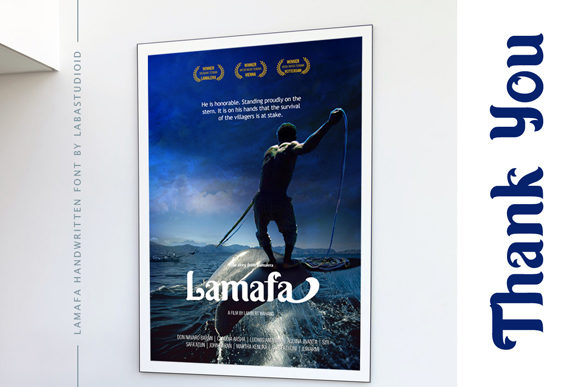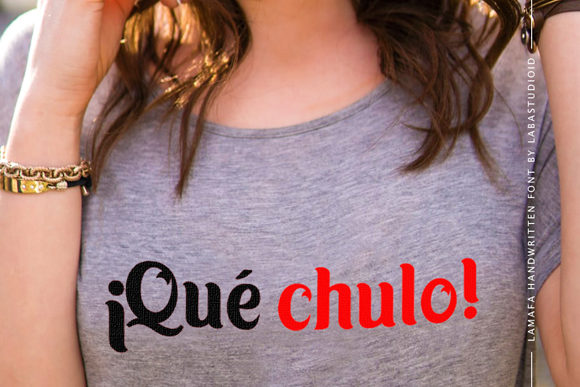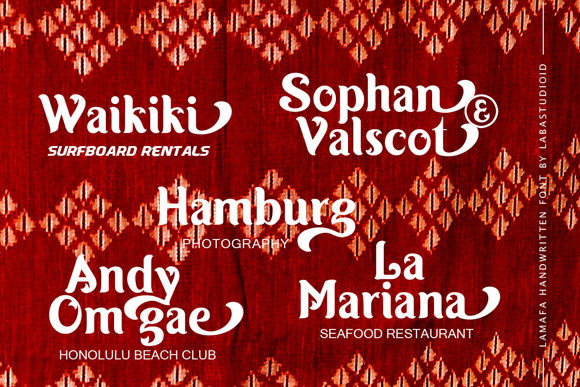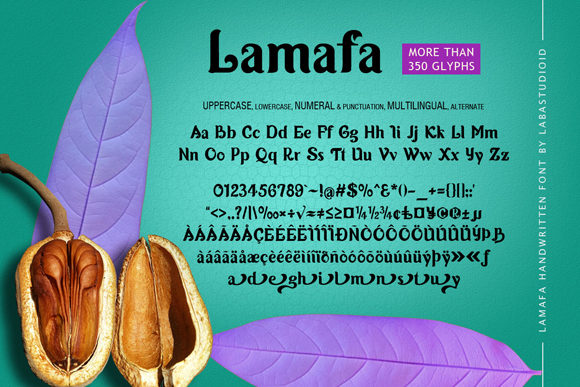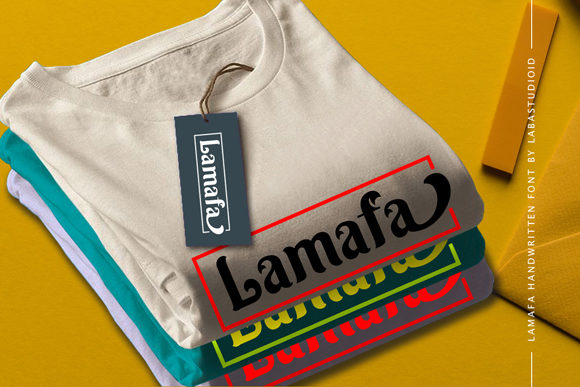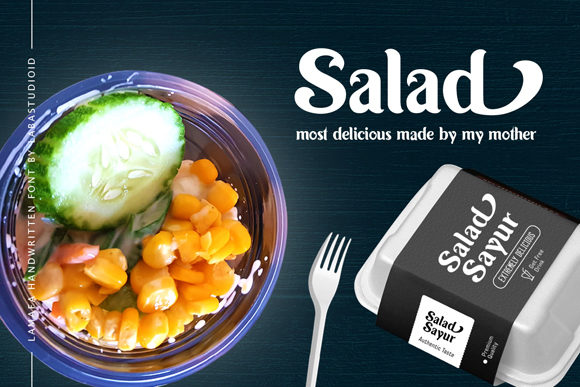
Introduction to Lamafa Font
You know that moment when you’re working on a creative project and the right font can make all the difference? It’s the moment when you’re trying to convey a message, evoke an emotion, or simply grab attention. For designers, finding the perfect font can be a challenge, but what if you stumbled upon a font that’s not only beautiful but also versatile?
Enter the Lamafa Font, a bold handwritten font that’s carefully handcrafted to become a true favorite. Its unique style and high quality make it a valuable addition to any design resource, whether you’re working on a project that requires a transparent background or a standalone headline.
Key Features of Lamafa Font
- Unique, hand-drawn design suitable for creative projects and artistic expressions
- High-quality font with transparent background, ideal for use on various backgrounds and designs
- Perfect for designers, artists, and creatives working on various projects, from digital art to print materials
Honest Review: Lamafa Font
I recently came across the Lamafa Font while searching for a design resource for a creative project, and I was excited to give it a try. Overall, I was impressed with the quality of the font, which features a unique, modern design.
- ✨ Unique design style that sets it apart from other fonts
- ✨ High quality, with clear and crisp typography
- ⚠️ Limited character set, which may not be suitable for complex design projects
- ⚠️ No transparent background option, which may be a drawback for designers who need to use the font on a transparent background
Overall, I think the Lamafa Font is a solid choice for designers who are looking for a modern, high-quality font for a creative project. While it may have some limitations, its unique design style and free download option make it a great resource to have in your design arsenal.
The Lamafa Font is a high-quality font that can be used in a variety of creative projects, including:
Tips for Getting the Most Out of Lamafa Font
To get the most out of the Lamafa Font, consider the following tips:
- Use the font with a transparent background to create a clean and modern look.
- Experiment with different font sizes and styles to add visual interest to your design.